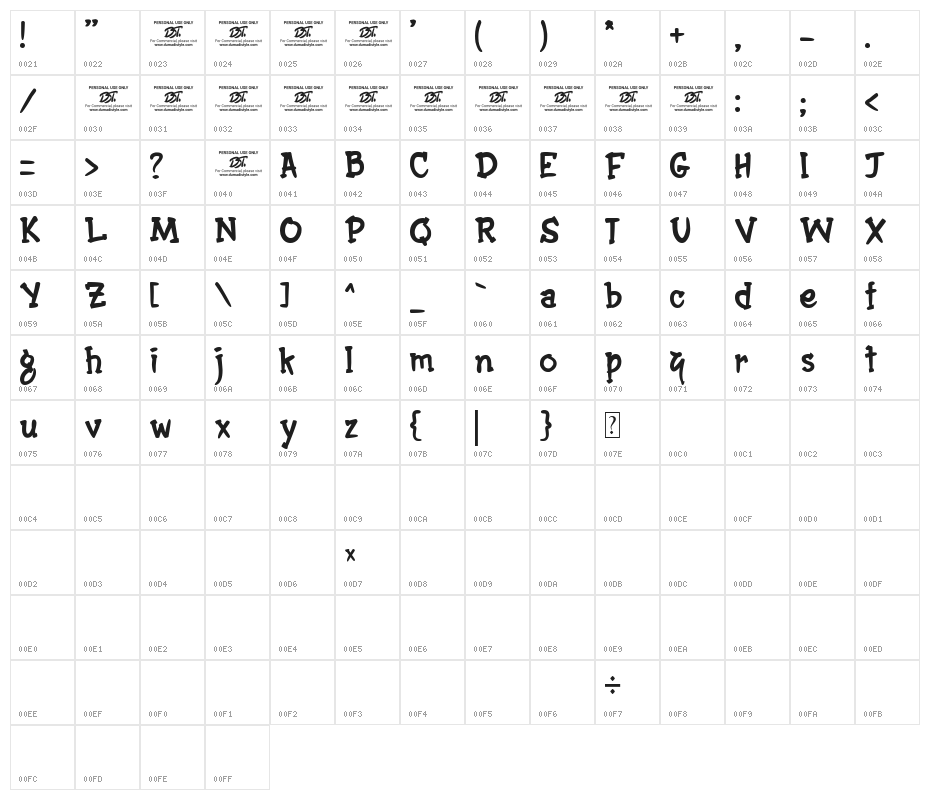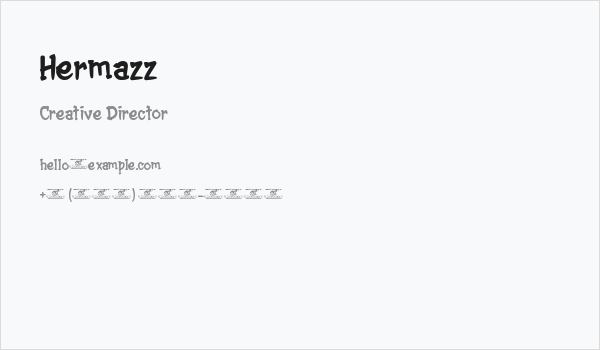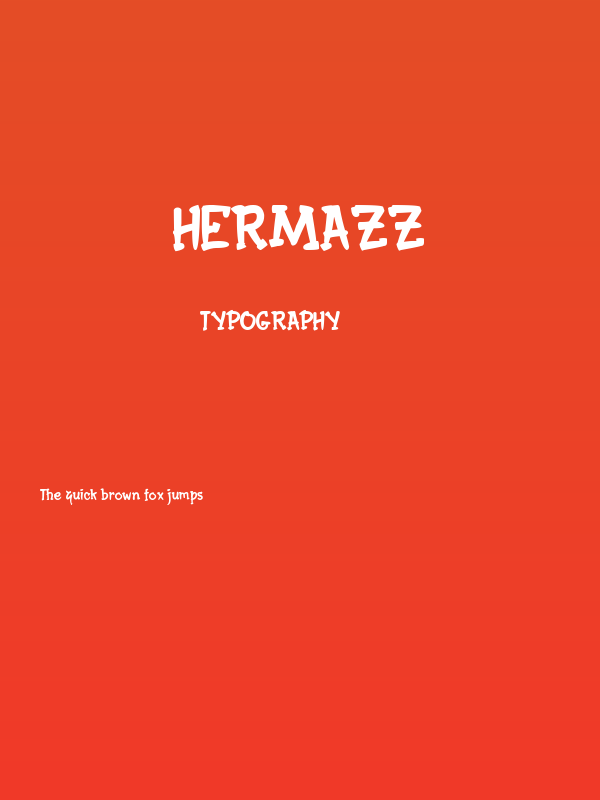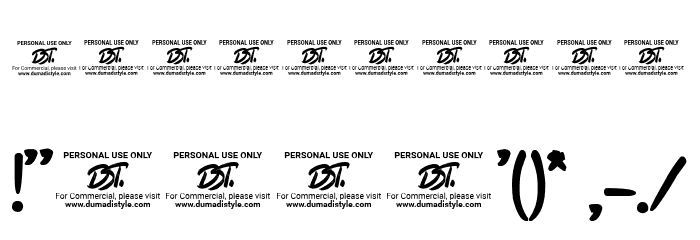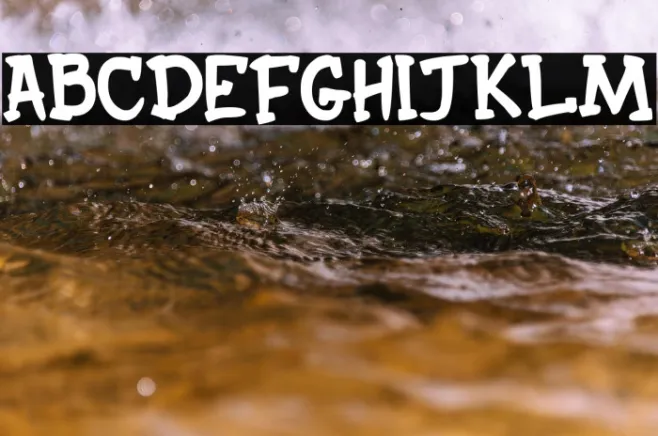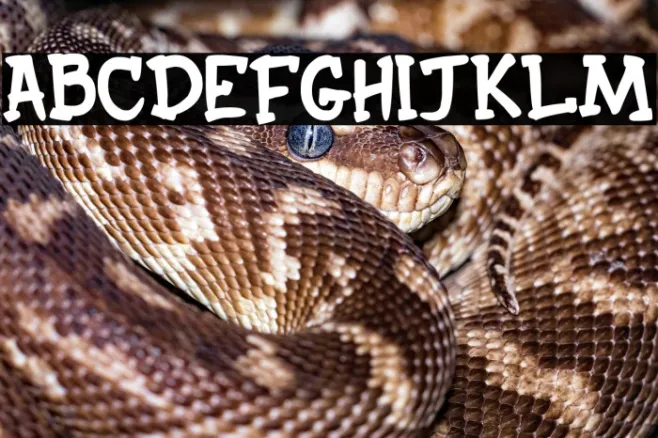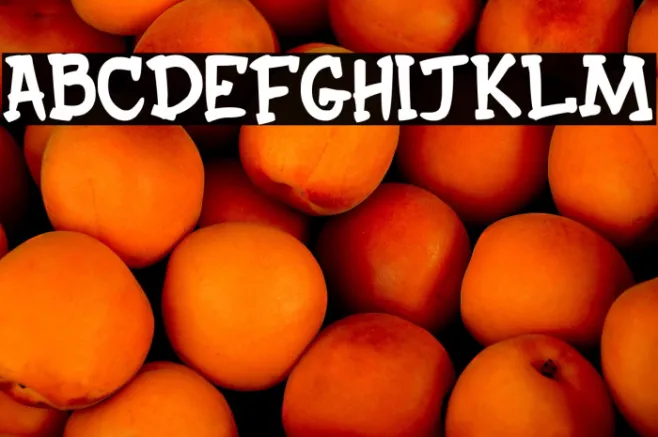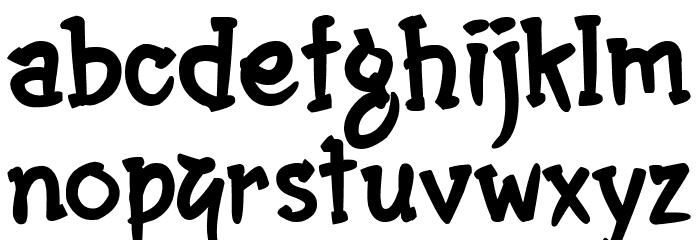
Hermazz Font
Hermazz Description
This font features a playful and bold design with a hand-drawn aesthetic. The characters are slightly irregular, giving them a whimsical and informal appearance. The strokes are thick and rounded, contributing to a friendly and approachable feel. The uppercase and lowercase letters maintain a consistent style, with unique flourishes and curves that add personality. The numbers and special characters are equally expressive, fitting seamlessly with the overall design. This font is ideal for projects that require a touch of creativity and fun.